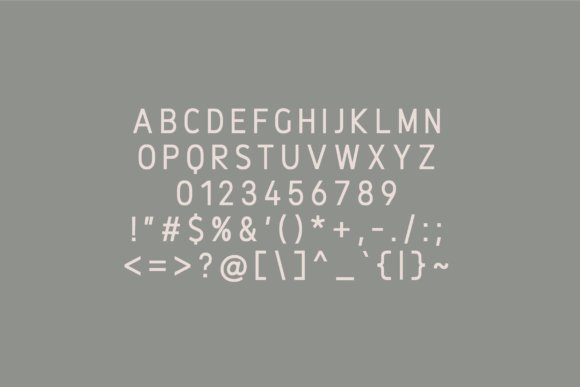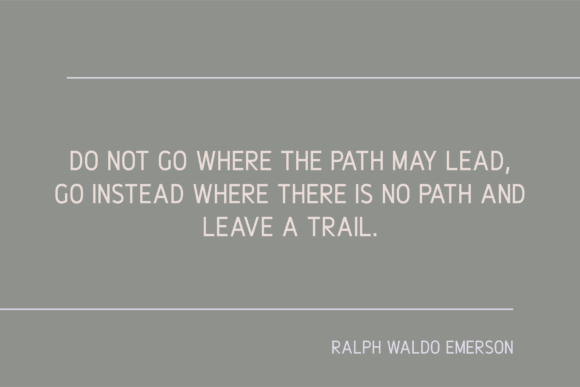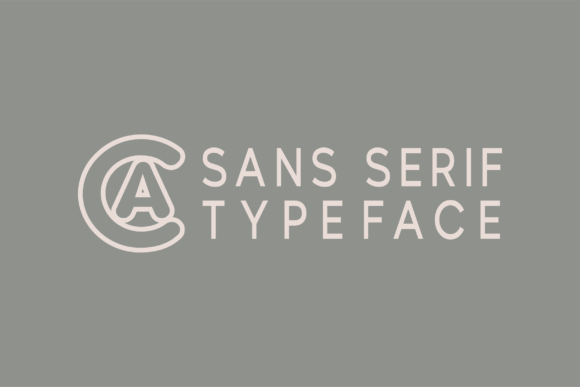
Introduction to Greenmango Font
Remember the thrill of discovering a perfect font for your creative project? The excitement that comes with envisioning your idea, and then, finally, finding the perfect design resource to bring it to life? For designers, this moment is priceless. It’s a moment that can make or break a project, and it’s precisely why we’re excited to introduce you to the Greenmango Font – a chic and contemporary sans serif typeface that’s sure to elevate your designs.
Whether you’re working on a high-end branding project, creating eye-catching print materials, or crafting memorable quotes, the Greenmango Font is an invaluable addition to your design toolkit. With its sleek lines, high-quality aesthetic, and transparent background, this font is perfect for designers who crave style and sophistication in their creations.
Key Features of Greenmango Font
- Features a transparent background, allowing for seamless integration with any design
- Designed with a modern aesthetic, making it perfect for contemporary creative projects
- Includes multiple font weights and styles, providing flexibility for designers
Honest Review: Greenmango Font
I recently stumbled upon the Greenmango Font and I must say, it’s a high quality design resource for any creative project. The font itself is sleek, modern, and perfect for those looking to add a touch of sophistication to their designs.
Here are some of the key features that I loved about the Greenmango Font:
- High quality design that’s perfect for creative projects
- Transparent background for easy integration into designs
- Sleek and modern aesthetic
However, there are some limitations to keep in mind:
- ⚠️ Limited font styles available (only a few options)
Overall, I’m impressed with the Greenmango Font. It’s a fantastic resource for designers looking to add some style to their projects. Just be aware of the limitations and use it responsibly.
The Greenmango Font is perfect for creative projects that require a high-quality, modern look. Use it in logos, brochures, business cards, and social media graphics to add a touch of sophistication and elegance.